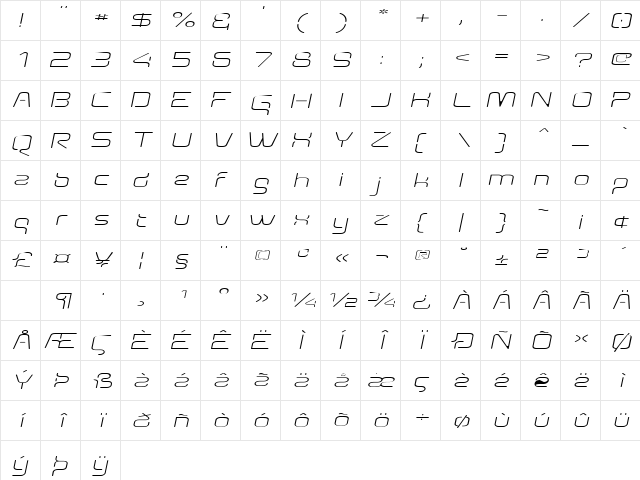
AunchantedThinExpandedOblique Regular
Design Context for AunchantedThinExpandedOblique Typeface
AunchantedThinExpandedOblique is a composed and adaptable typeface that performs quietly and consistently across a wide range of design contexts. Its italic angle brings a sense of urgency and motion to the letterforms. Its slender proportions lend an understated elegance to any composition.
Pro Tip: Use AunchantedThinExpandedOblique for emphasis, pull quotes, and subheadings where its slanted energy can add rhythm to the layout.